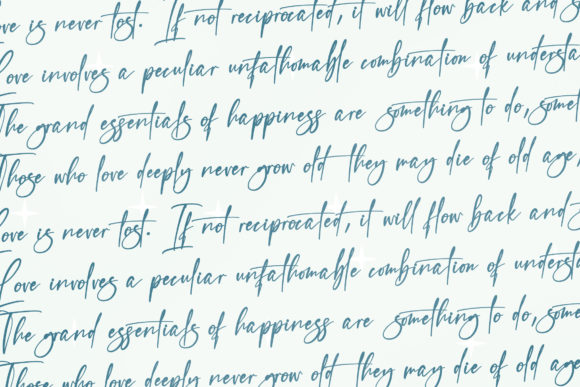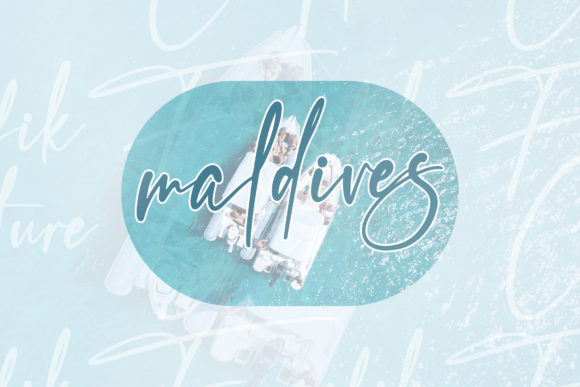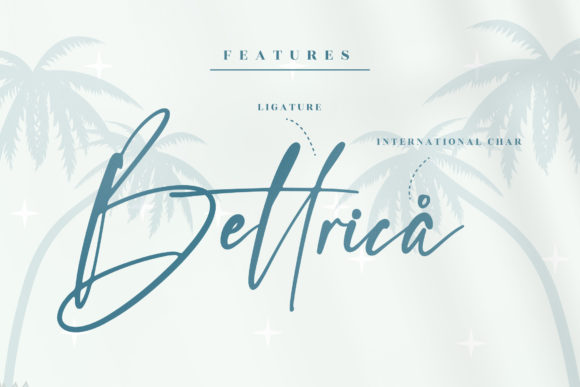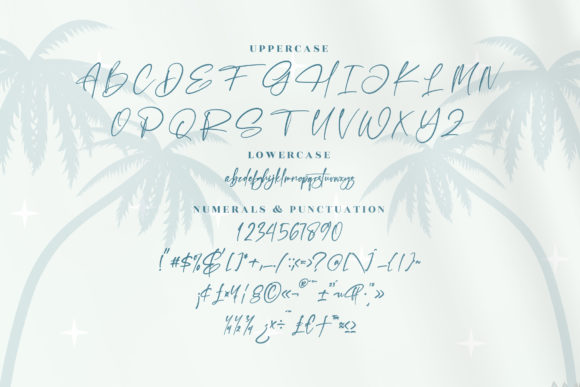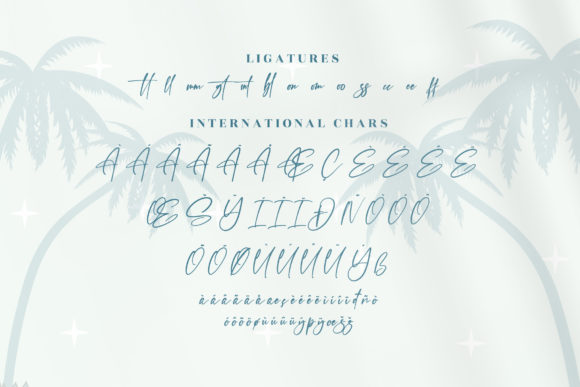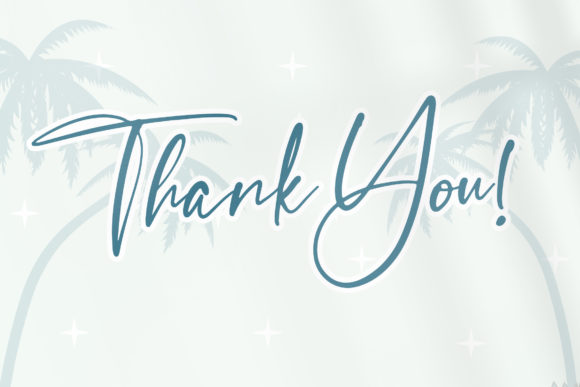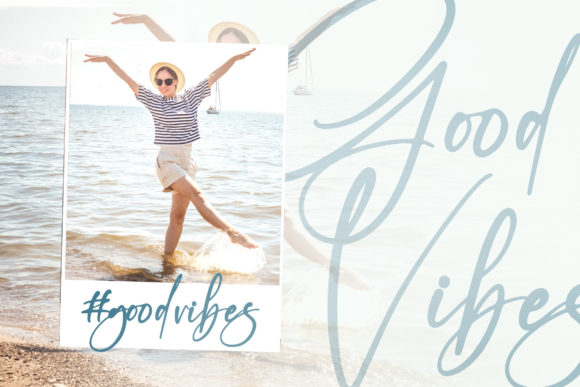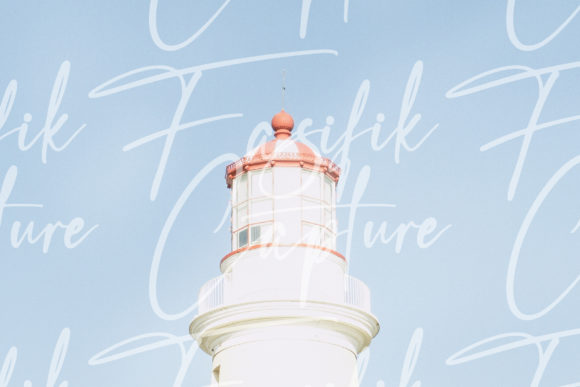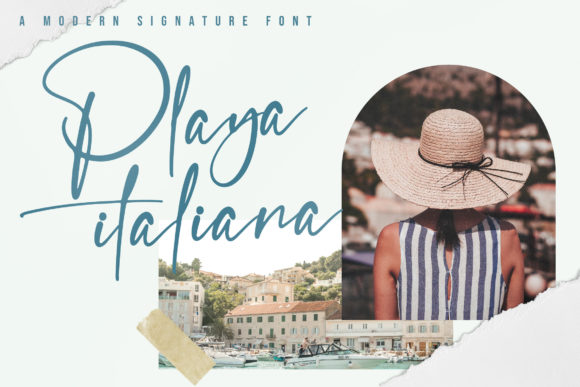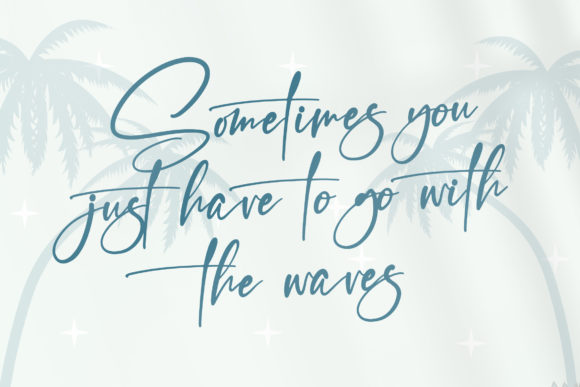
Fasifik Capture Font
About Fasifik Capture Font
Fasifik Capture is a relaxed script font featuring charming, playful characters that seem to dance along the baseline. Add this font to your most creative ideas, and notice how it makes them stand out!